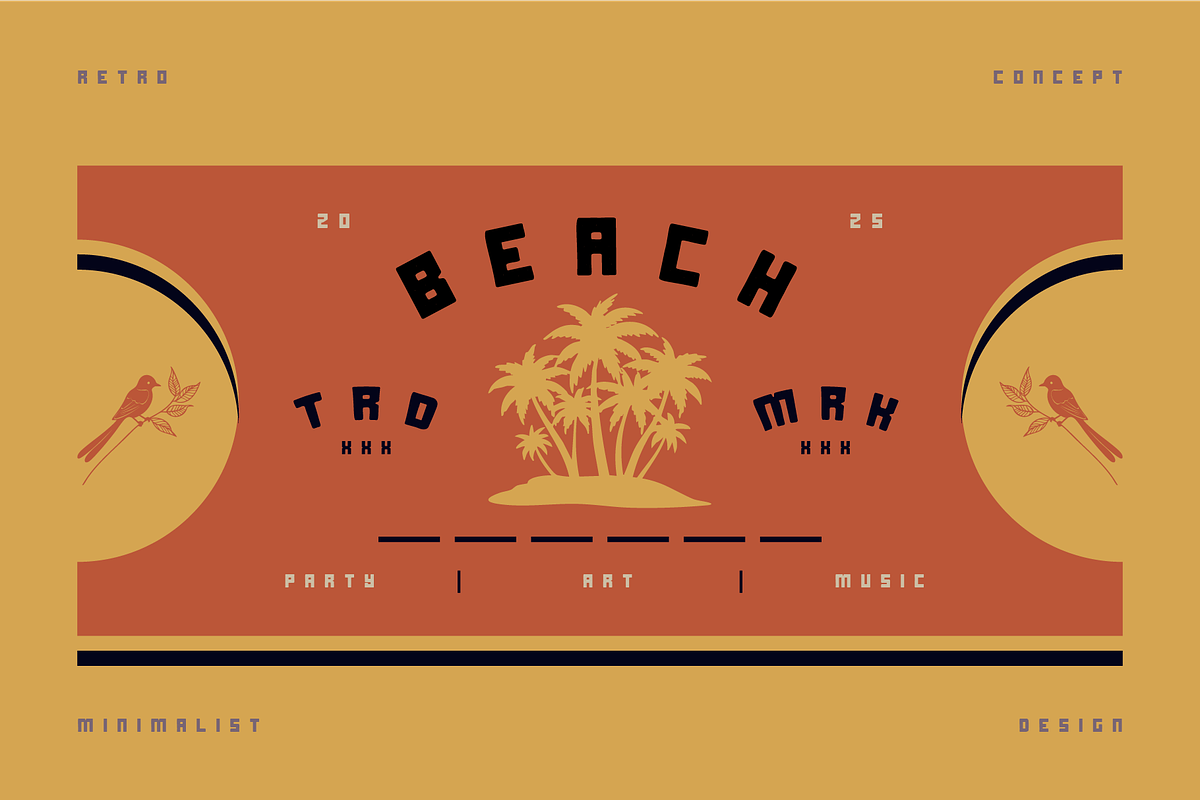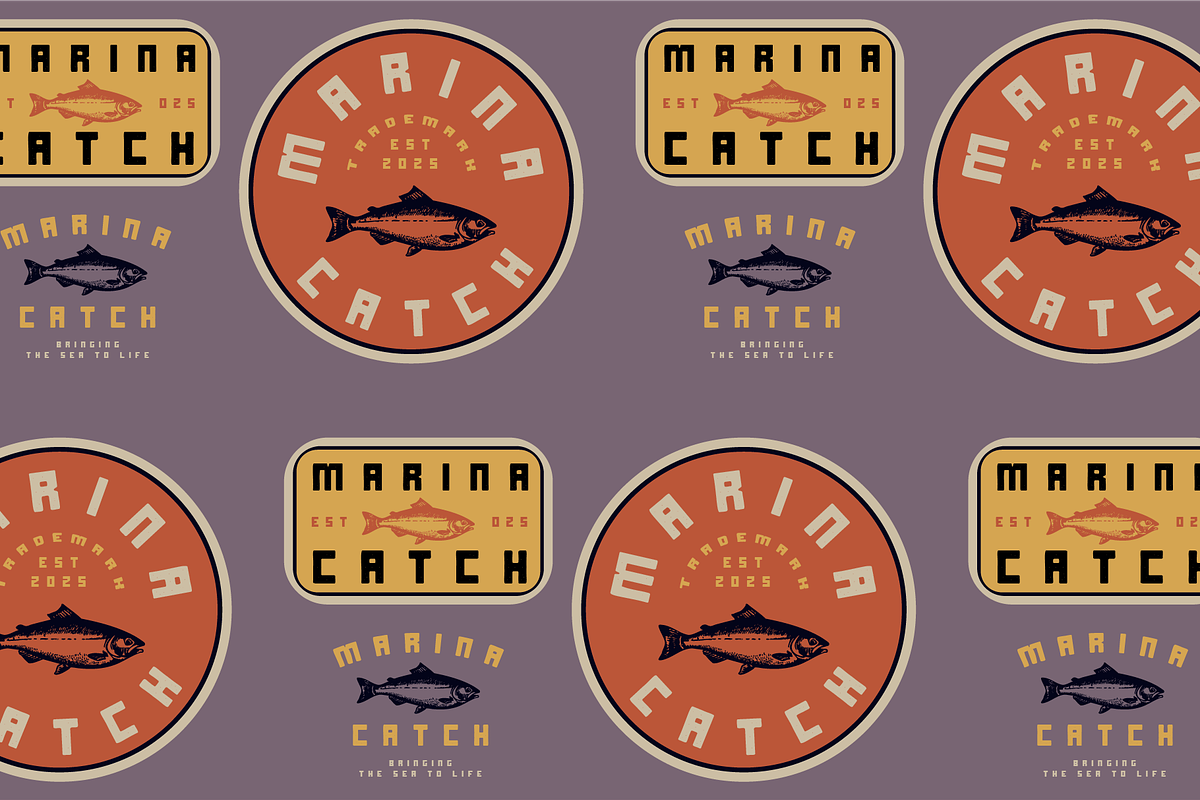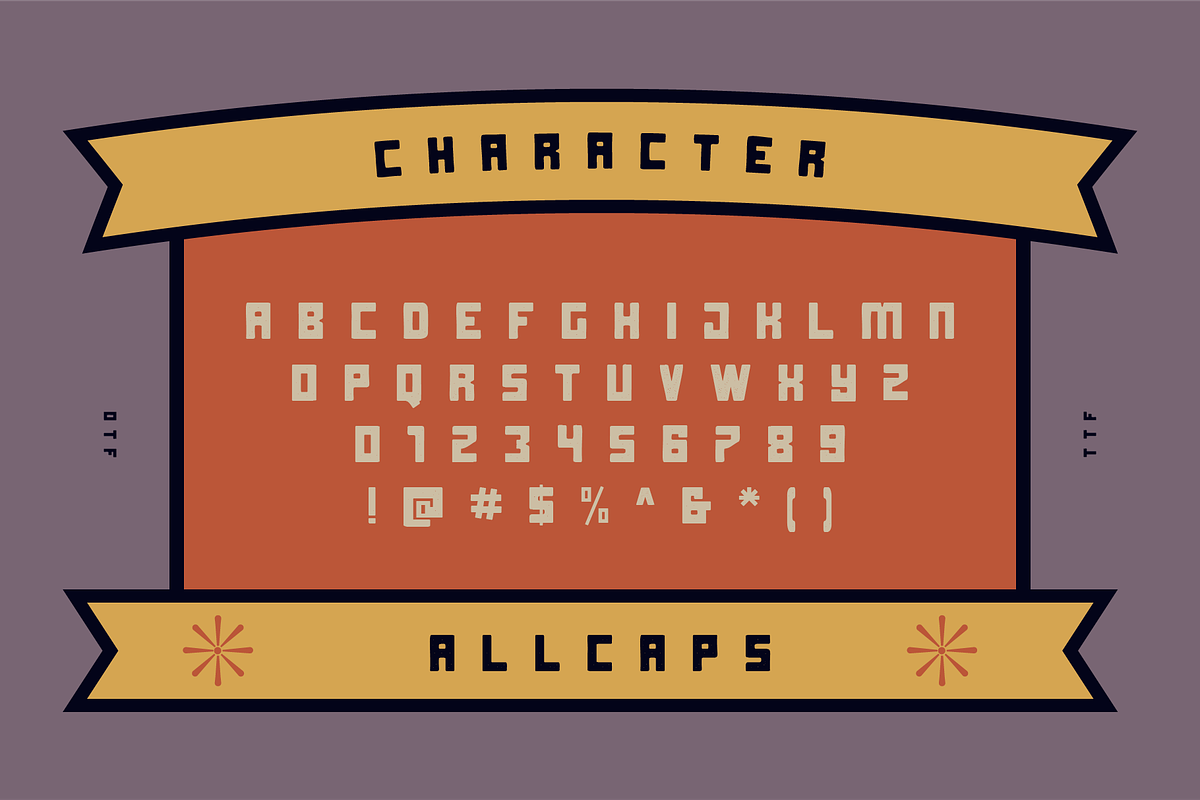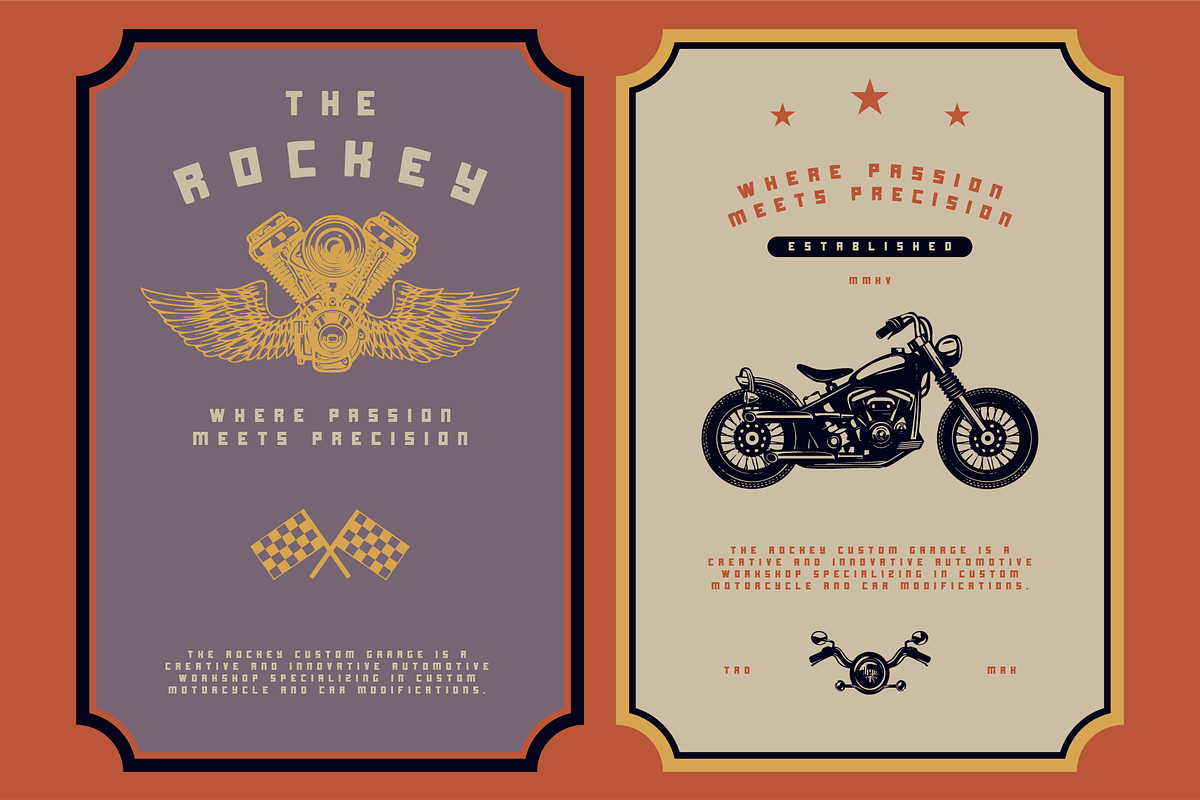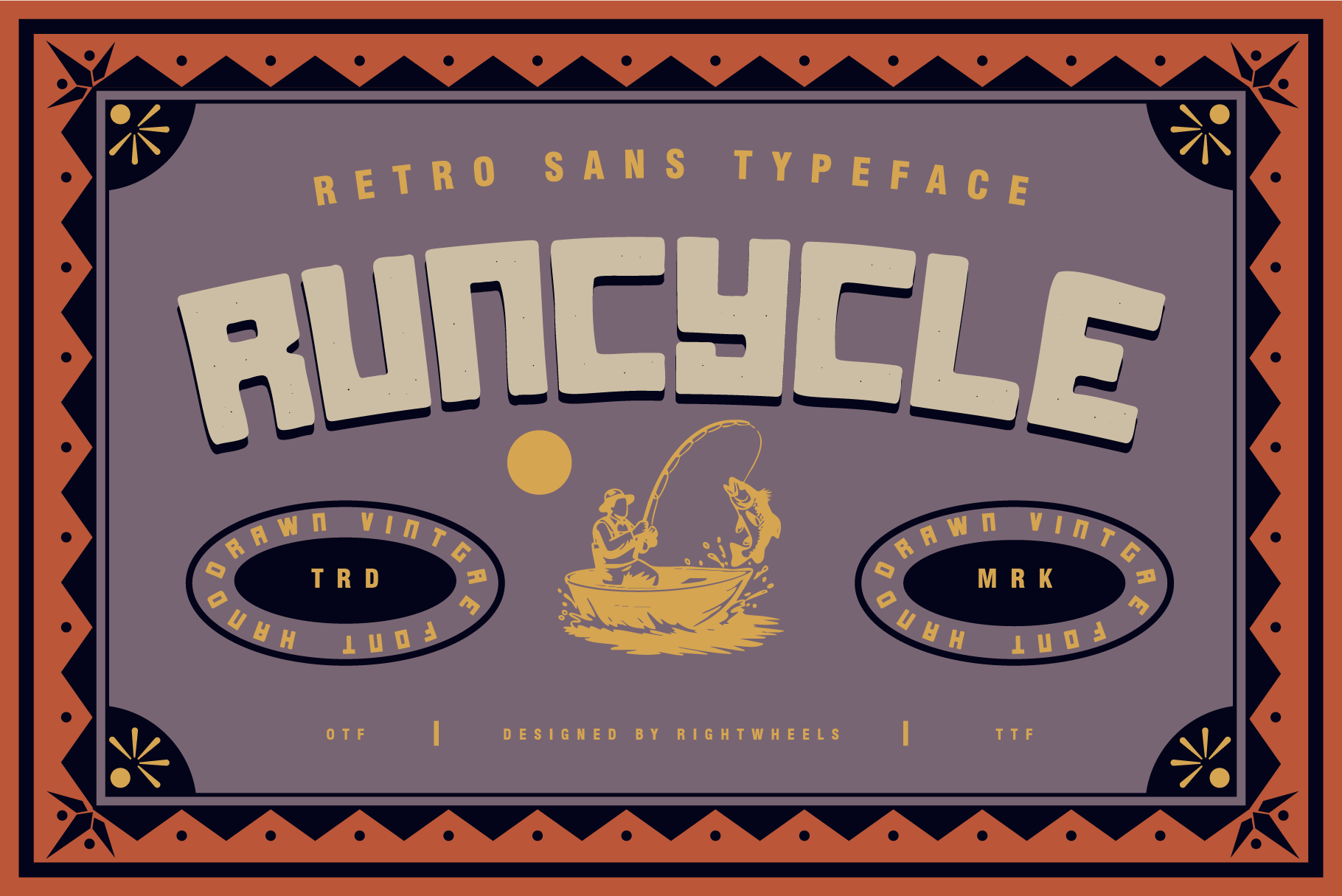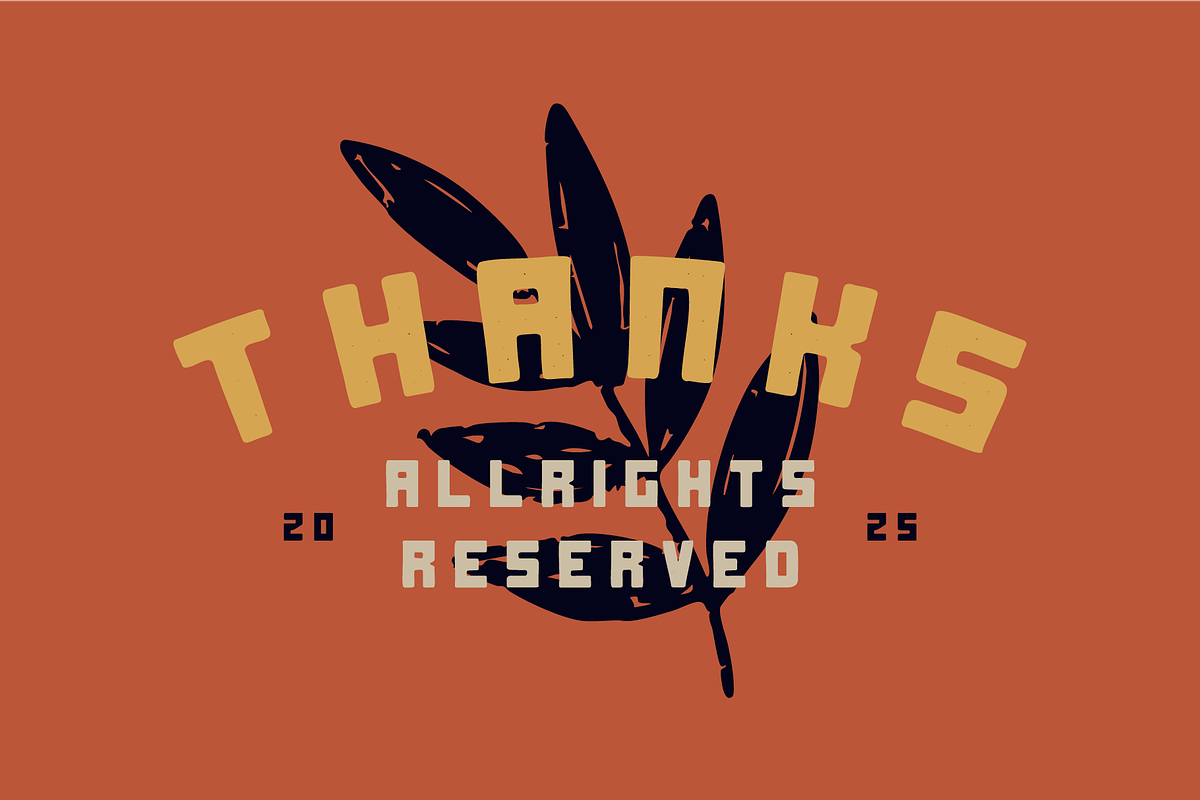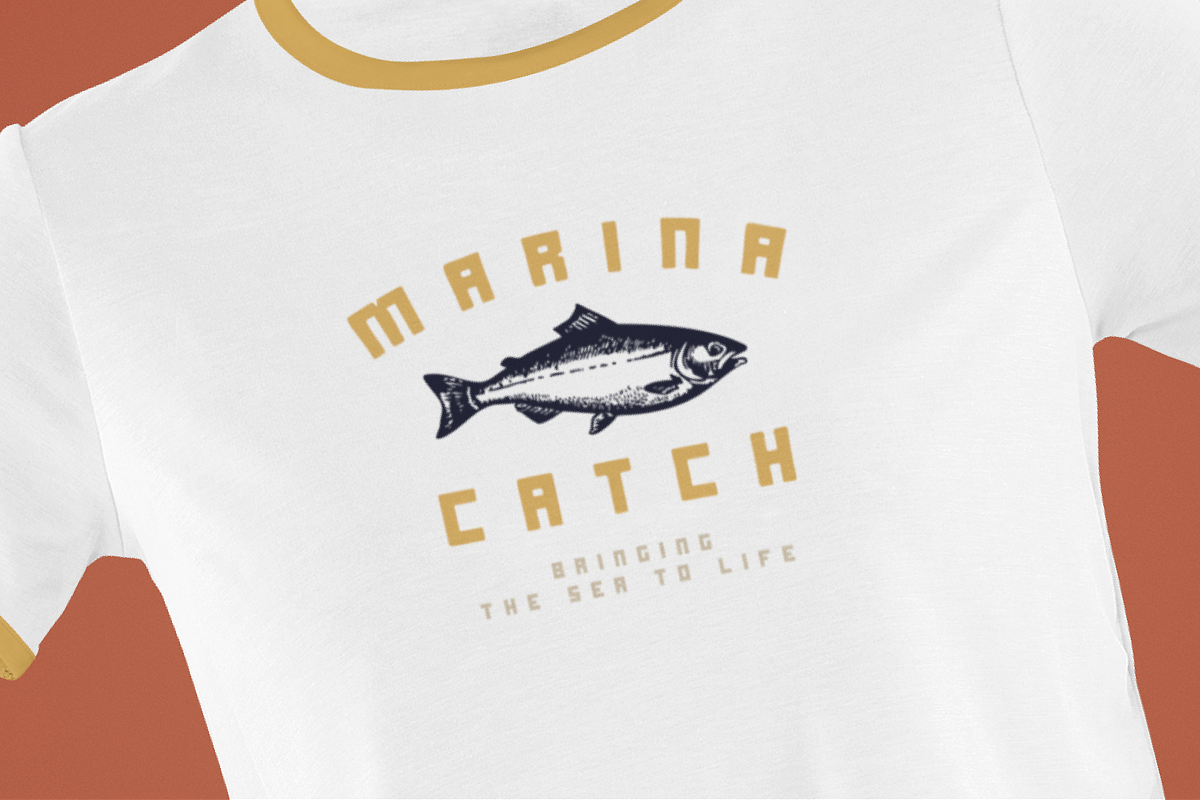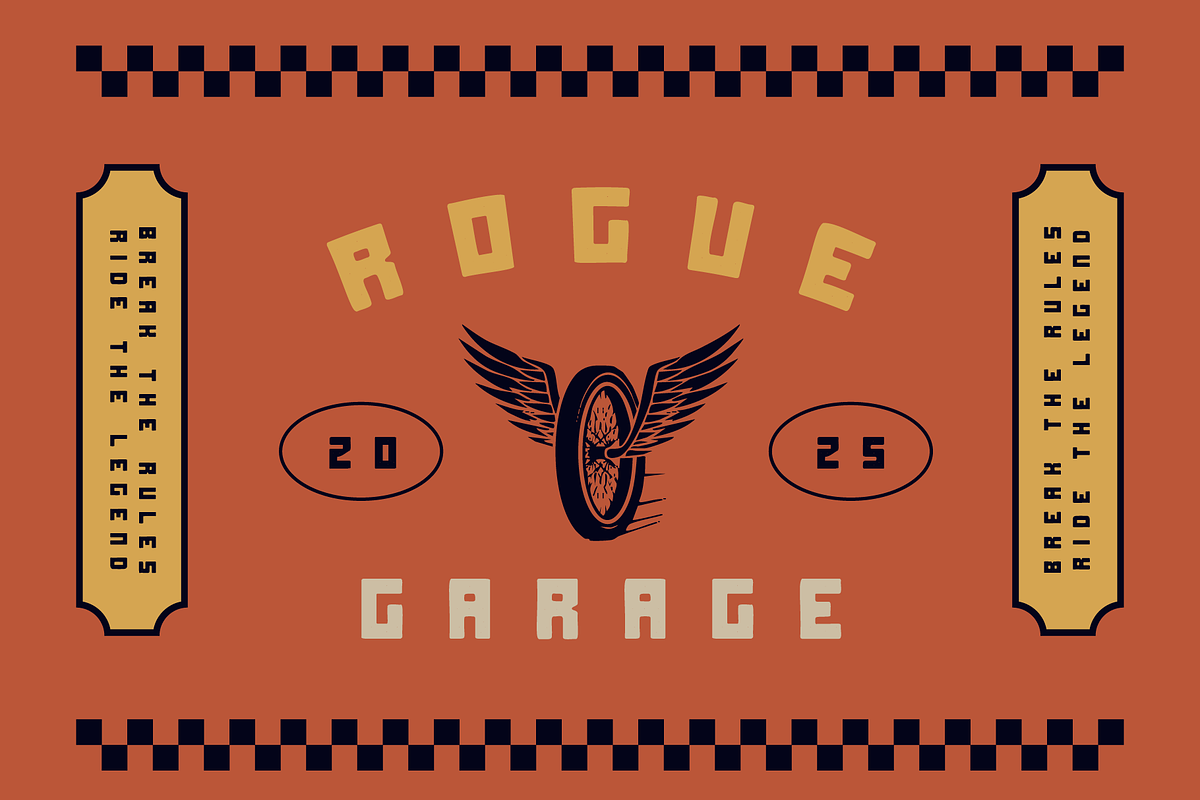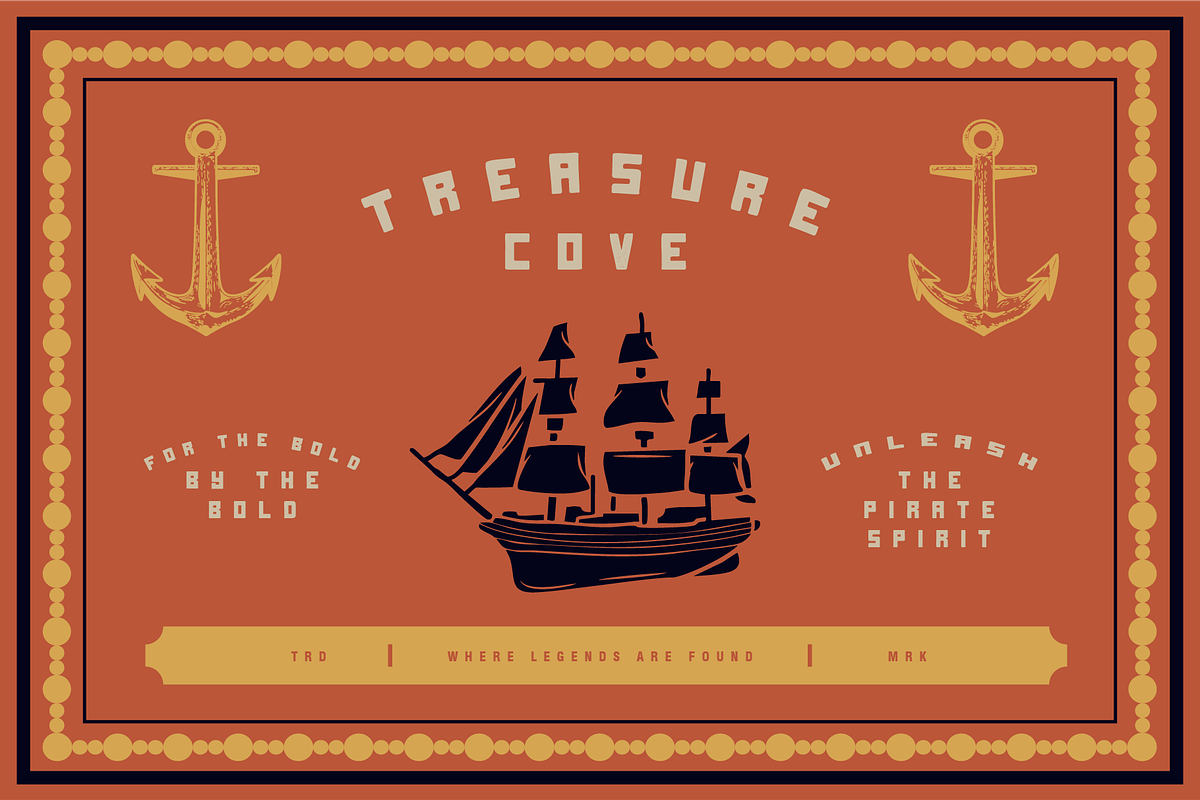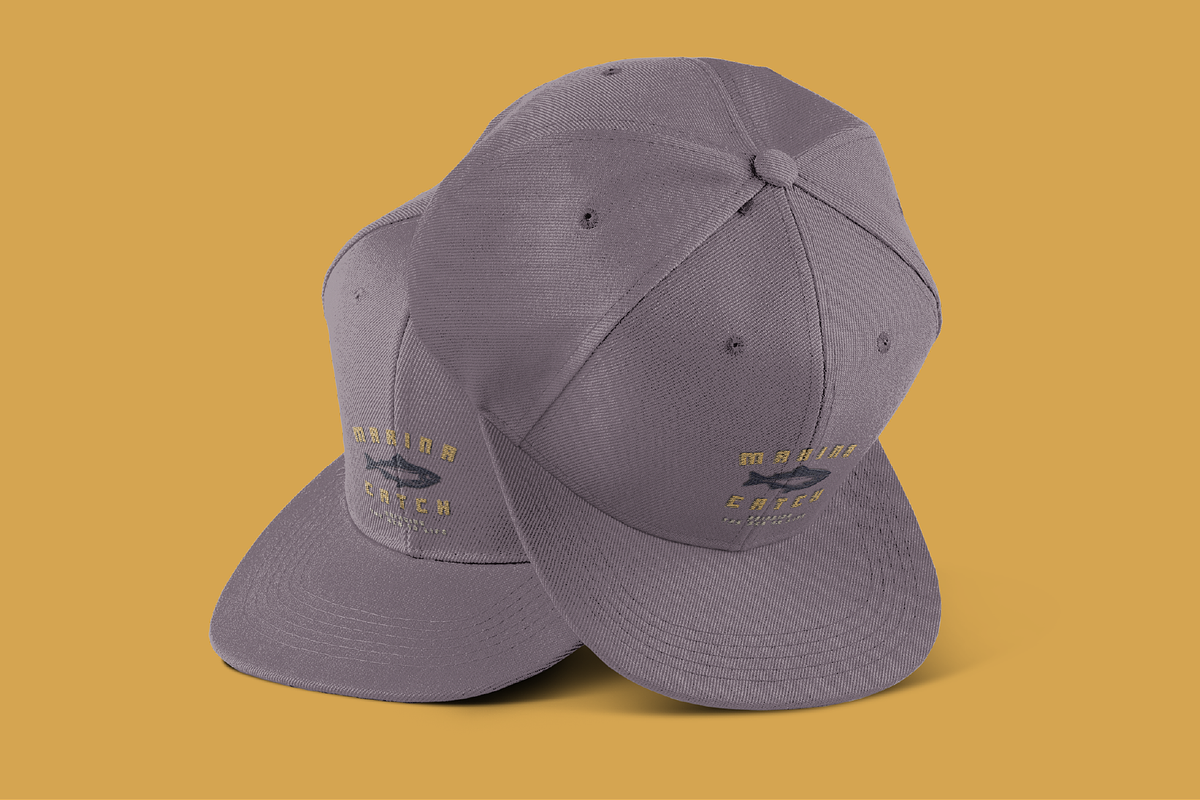
RUNCYCLE - Retro Display Font
Runcycle is a retro-inspired font, often used to evoke a nostalgic feeling or a vintage aesthetic, reminiscent of the design trends from the 70s to 90s. Its bold, geometric style makes it great for projects that need that throwback vibe. The font works well in designs where you want to capture a sense of old-school charm or urban retro.